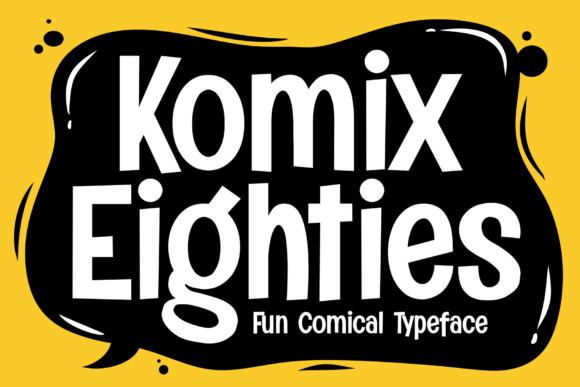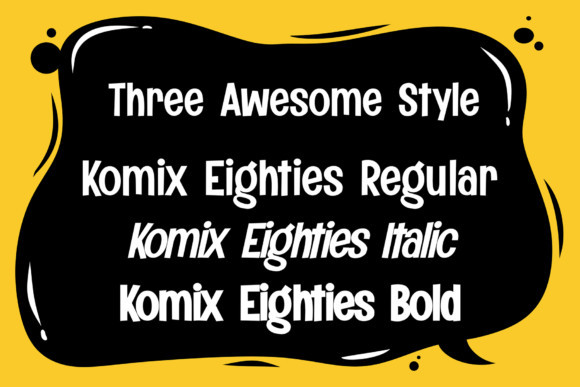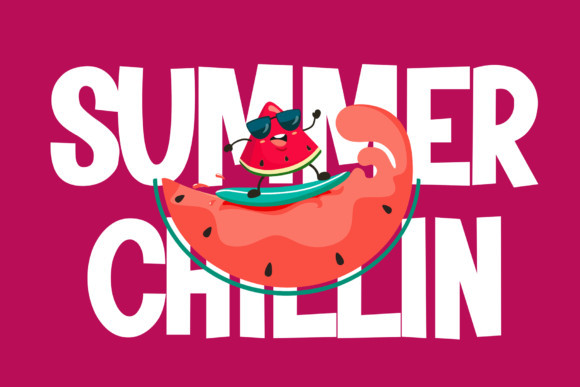
Komix Eighties Font
Komix Eighties is a beautiful display font. It maintains its classy calligraphic influences while feeling contemporary and fresh. This versatility will appeal to a wide range of crafty ideas, from letterheads and titles, to stationery.